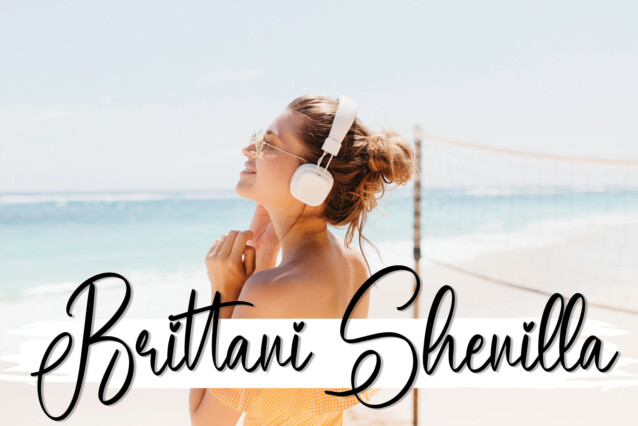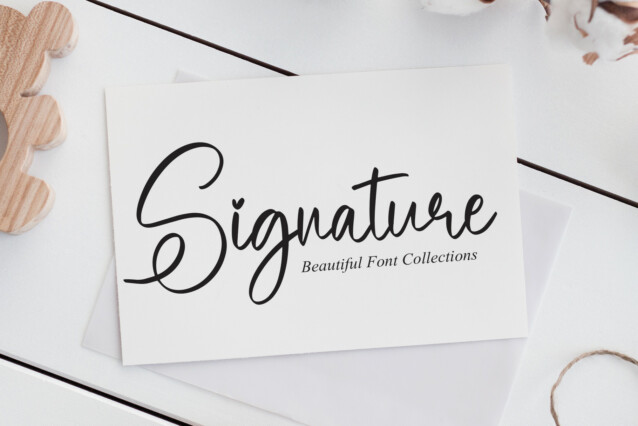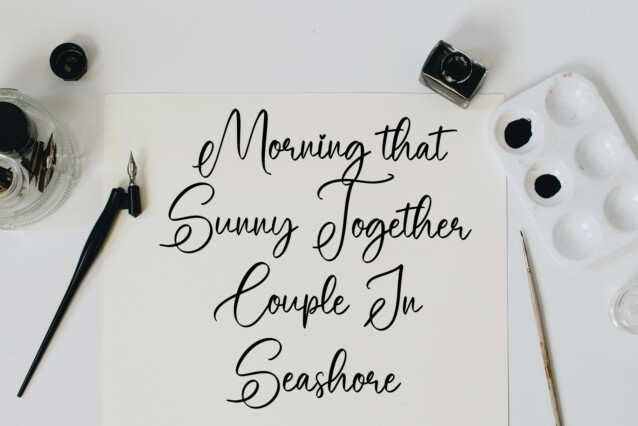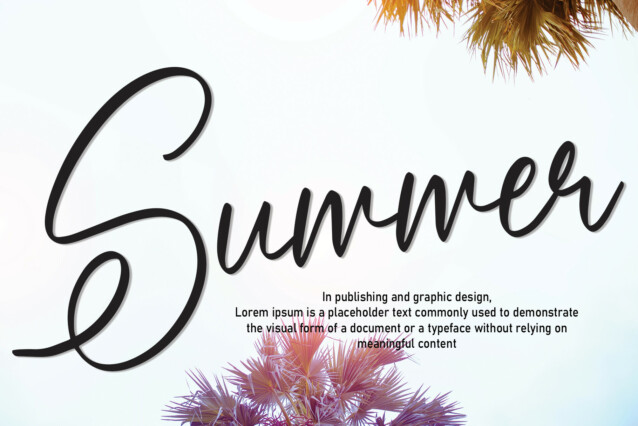
Coffee Sunday Script Font
Coffee Sunday Script Font is a dazzling script font. This font is neatly crafted and highly detailed. Whatever the topic, this font will be a wonderful asset to your font library, as it has the potential to enhance any creation.